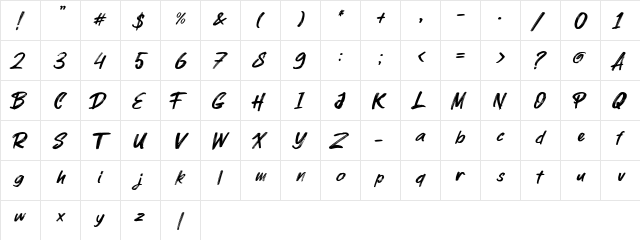
Parkway Lush Regular
| Foundry | DK_Project |
| Designer | Degi Kurniawan |
Design Context for Parkway Lush Typeface
Parkway Lush is a composed and adaptable typeface that performs quietly and consistently across a wide range of design contexts.